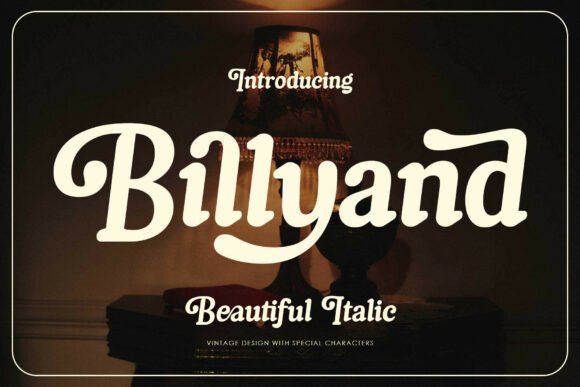
Discover the Elegance of Billyand Font: A Refined Vintage Italic Typeface
Have you ever been in the middle of a design project, and suddenly, you’re struck by a creative block? You’re not alone! I recall a particularly frustrating experience while working on a luxury packaging project for a high-end coffee brand. My client wanted a font that exuded elegance, sophistication, and a touch of vintage charm. After hours of scouring through font libraries, I stumbled upon Billyand Font – a game-changer for my project and potentially for yours too!
A Personal Review: What I Love About Billyand Font
Billyand Font has been a revelation in my design workflow. Here are a few aspects that I absolutely adore:
• ✨ Beautifully Crafted Swashes: The sweeping swashes add a decorative flair that’s perfect for titles, pull-quotes, and emphasis.
• ✅ Versatility: Billyand works seamlessly across various design applications, from logos and signage to apparel and merchandise.
• 🔥 Retro-Chic Aesthetic: The font’s vintage italic style instantly adds a touch of sophistication and elegance to any design.
• 💪 Heavy-Bottomed Weight: The grounded yet stylish feel makes it perfect for headlines and titles that demand attention.
While Billyand Font is incredibly versatile, there are a few minor considerations to keep in mind:
• 🤔 Learning Curve: With a rich set of alternates and swashes, it might take some time to get familiar with the OpenType features and glyphs.
• ⚠️ Overuse: Due to its elegant nature, it’s easy to overuse Billyand Font. Balance is key to maintaining its luxurious feel.
The Inspiration Behind Billyand Font
Billyand Font was crafted with the vision of blending classic italic lettering with a bold, decorative edge. Inspired by vintage typography and luxury branding, its designer aimed to create a typeface that feels both elegant and confident. The result is a versatile font that adapts effortlessly to various design styles, from retro-chic to minimalist.
Author Arterfak Project
What makes Billyand Font suitable for luxury packaging? Billyand Font’s elegant, vintage-inspired design and decorative swashes make it perfect for adding a touch of sophistication to luxury packaging.
Can I use Billyand Font for digital media? Absolutely! Billyand Font’s versatility makes it suitable for both print and digital applications, including websites, social media graphics, and more.
Is Billyand Font easy to read? Yes, despite its decorative nature, Billyand Font maintains a rhythmic flow that makes it enjoyable to read, especially in titles and pull-quotes.
Does Billyand Font include a range of alternates and swashes? Yes, Billyand Font comes with a rich set of alternates and swashes, offering designers a wide range of creative options.
Billyand Font has undoubtedly become a staple in my design toolkit, and I hope it will do the same for you. Its elegance, versatility, and decorative flair make it an excellent choice for a wide range of design projects. Give it a try and discover how it can elevate your designs!